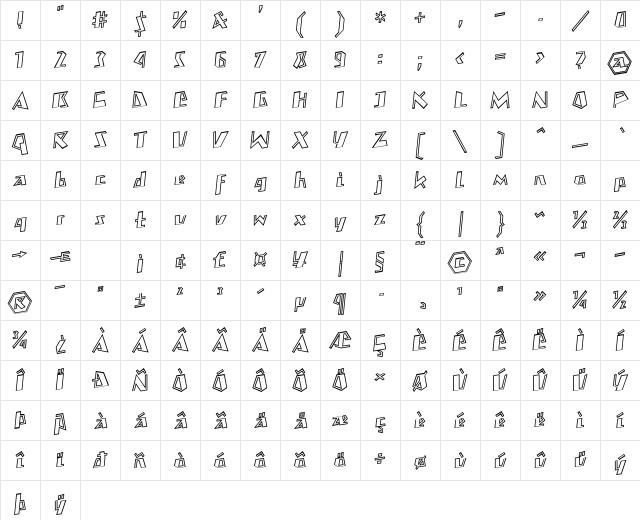
MateoOutlineBoldLL Regular
Design Context for MateoOutlineBoldLL
MateoOutlineBoldLL is built around its visual character rather than neutral utility - its distinctive forms are designed to make an impression at display sizes. Its bold stroke weight gives it real presence on the page.
Font Pairing: Pair with a clean neutral sans-serif for body copy to let MateoOutlineBoldLL's character lead without overwhelming the composition.
Pro Tip: Use MateoOutlineBoldLL exclusively at display sizes - it was designed to be seen, not read at length. Let a neutral companion handle body copy.